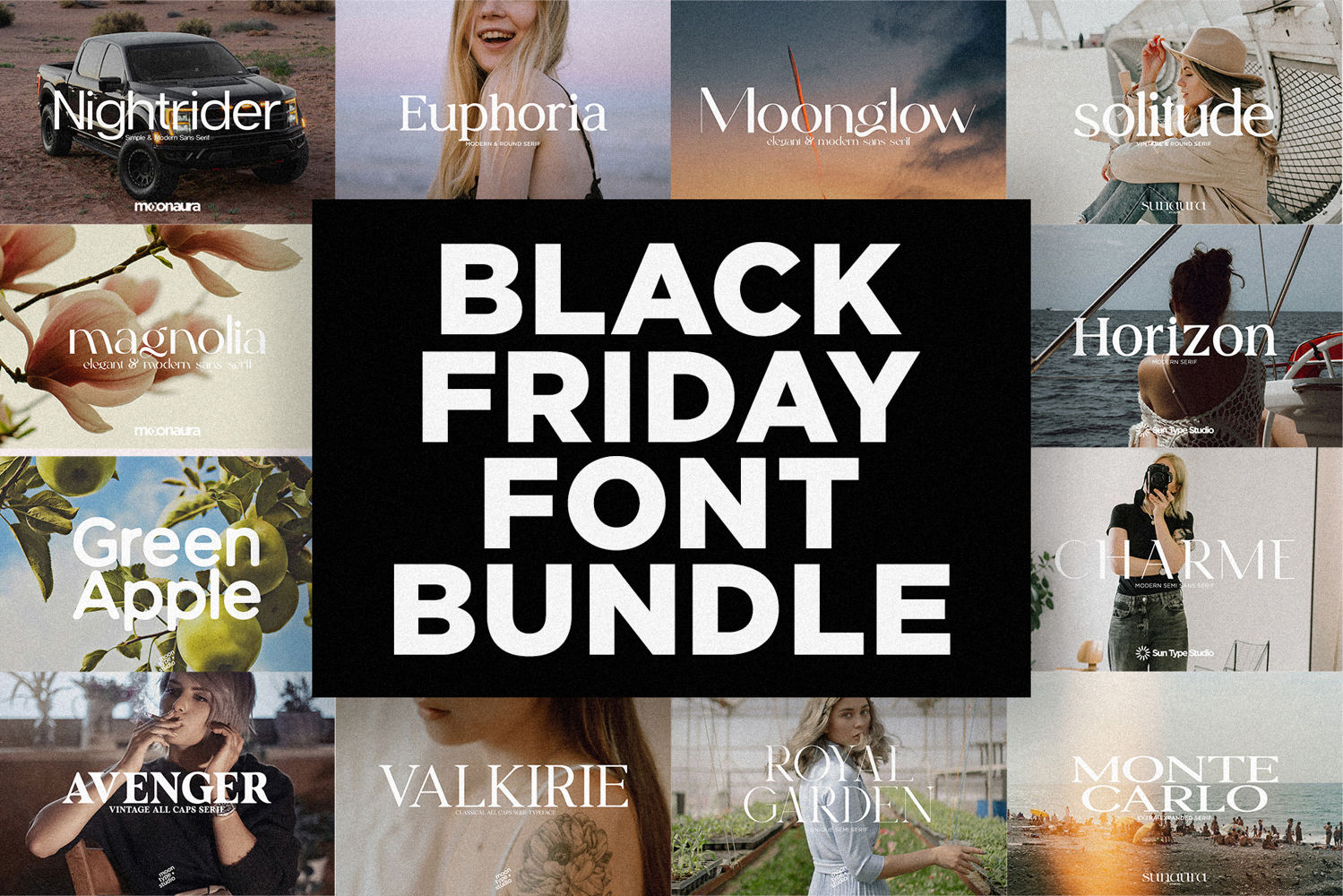
Black Friday Font Bundle - Limited
Introducing the Black Friday Font Bundle (Limited) — an exclusive, time-sensitive collection crafted for designers who want unbeatable value without sacrificing quality. This limited-edition bundle brings together a powerful variety of modern, stylish, and highly versatile fonts designed to elevate any project with ease.
Inside, you'll find a curated selection of bold display typefaces, clean and contemporary sans-serifs, elegant serifs, and creative script fonts—each chosen to help you make a striking visual impact. Whether you're designing branding, packaging, social media graphics, editorial layouts, or seasonal promotions, this bundle gives you the perfect typographic tools to stand out during the busiest creative season of the year.